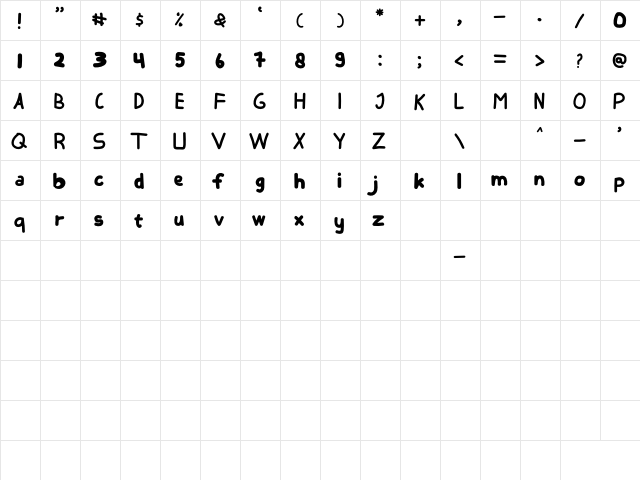
normal kids Regular
Design Context for normal kids Typeface
normal kids has an approachable, lighthearted character — its loose, expressive forms are well-suited to children's content, casual branding, and fun-first design.
Font Pairing: Pairs well with a rounded or humanist sans for body copy, maintaining the friendly tone without relying on normal kids to carry extended reading.
Pro Tip: Use normal kids at larger display sizes where its expressive character can land. Pair with a clean, simple sans for body copy to maintain readability.